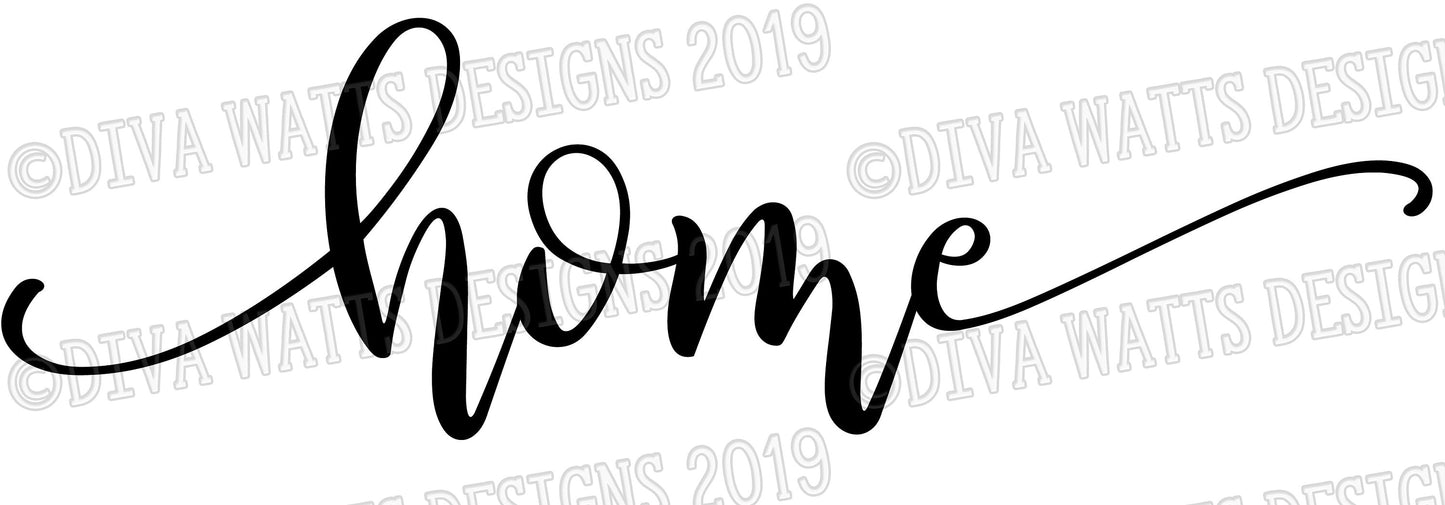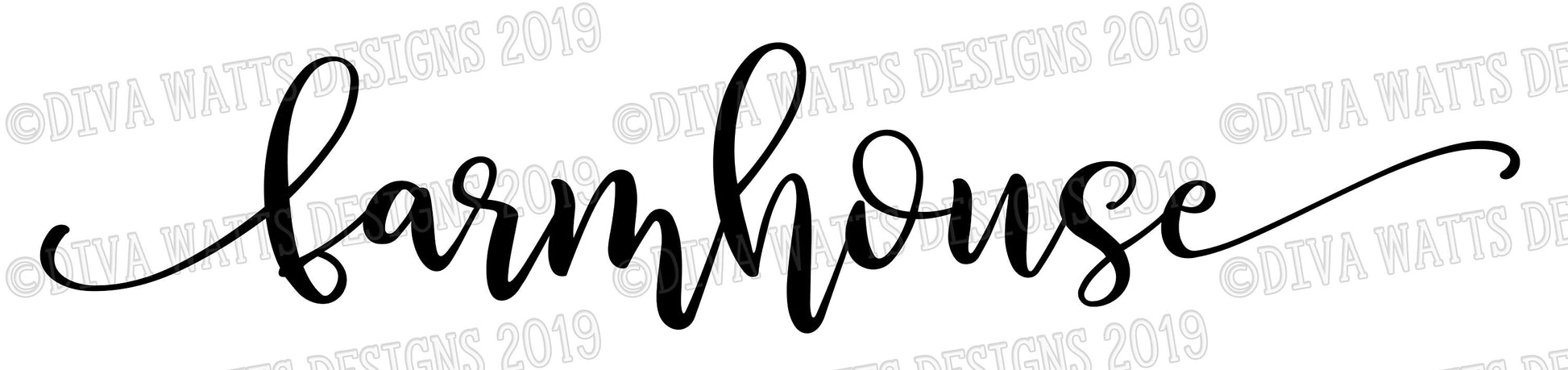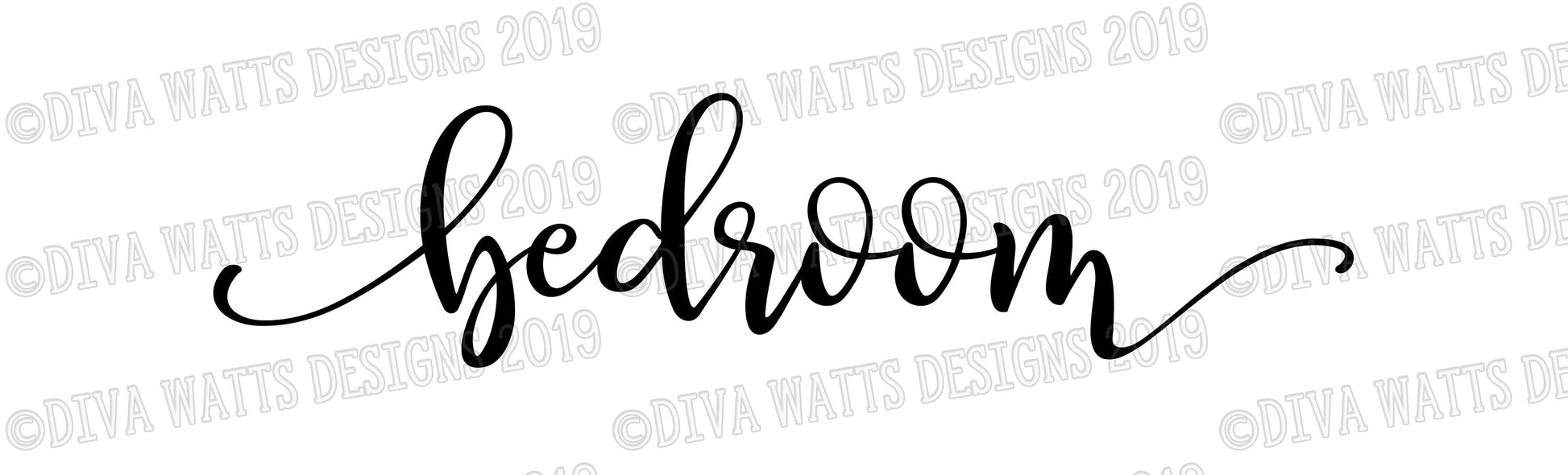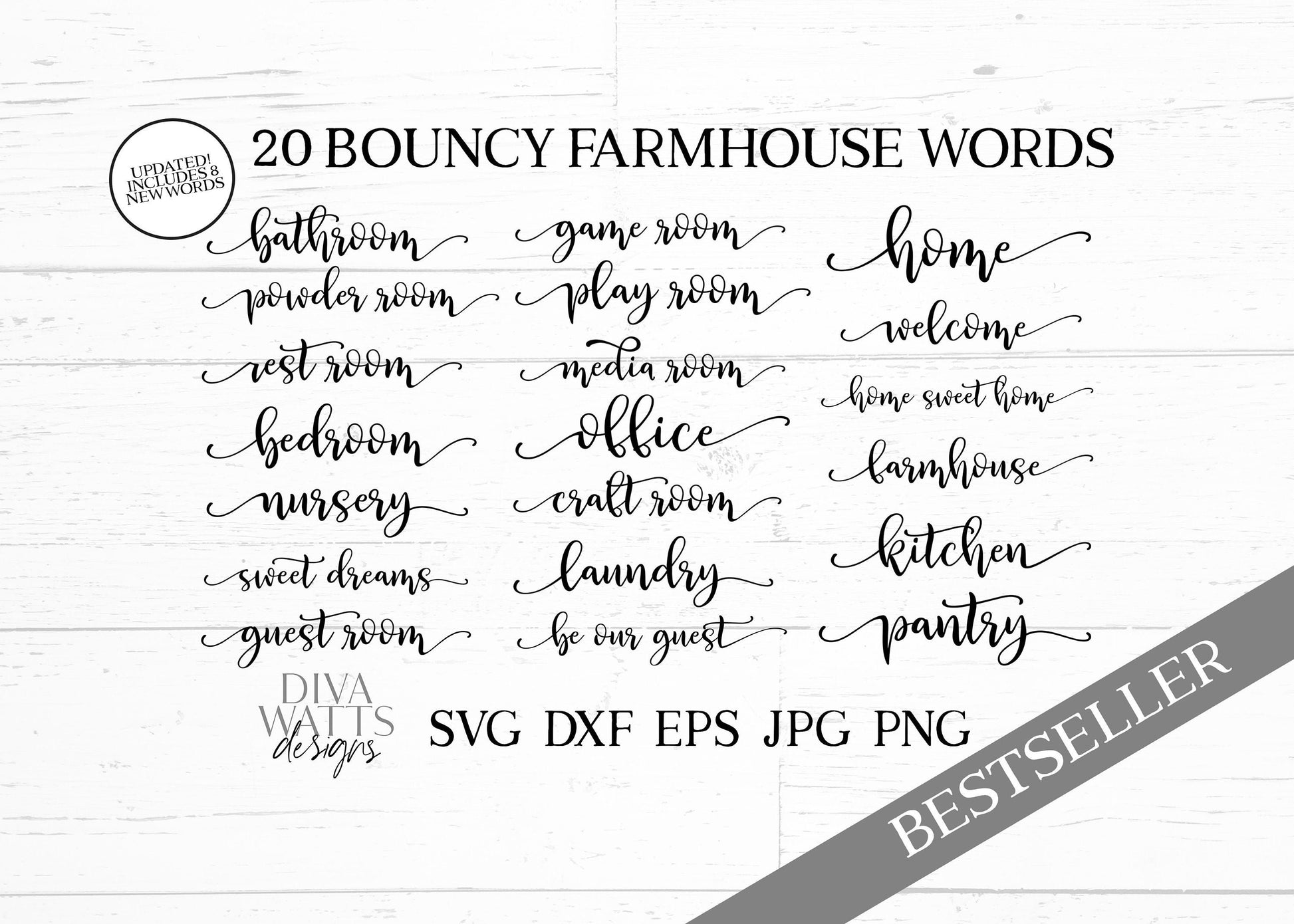
SVG Farmhouse Words Bundle of 20 | Cutting Files | Updated | Bouncy Font with Tails | DXF PNG jpg eps | Vinyl Stencil htv | Signs Sign Set
Set of 20 Farmhouse Words Bundle
Home
Home Sweet Home
Bedroom
Guest Room
Be Our Guest
Welcome
Kitchen
Pantry
Laundry
Farmhouse
Sweet Dreams
Office
Rest Room
Powder Room
Bathroom
Media Room
Play Room
Game Room
Nursery
Craft Room